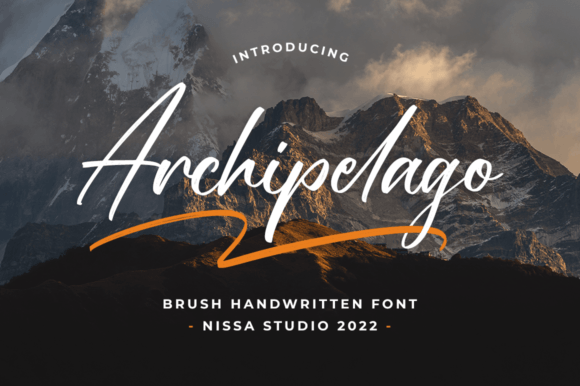
I still remember the project like it was yesterday. I was working on a branding campaign for a luxury resort, and I was determined to find the perfect font to capture their essence. The client wanted something that exuded elegance and class, but I was struggling to find a font that fit the bill. That’s when I stumbled upon Archipelago, a lovely and delicate script font that immediately caught my eye. In this article, I’ll share my experience with Archipelago, its features, and how to make the most of it in your designs.
An Honest Review of Archipelago Font
So, what makes Archipelago special? Here are some of the things I love about this font:
- ✨ Elegant and delicate script style that’s perfect for luxury brands
- 💫 Beautiful and refreshing look that’s sure to elevate your designs
- 🎨 Highly versatile and can be used for a variety of design projects, from branding to packaging
Of course, no font is perfect, and Archipelago has a few small quirks:
- 🤔 Some users may find the font a bit too delicate for certain design projects
- ⚠️ May not be suitable for body text due to its script style
The Story Behind Archipelago Font
Archipelago was designed by a team of typographers who wanted to create a font that captured the essence of elegance and class. The font was inspired by the beautiful landscapes and seascapes of archipelagos around the world. The designers aimed to create a font that was both delicate and refined, perfect for luxury brands and designs.
| Font Name | Archipelago Font |
| Author | NissaStudio |
| What is Archipelago font? | Archipelago is a lovely and delicate script font that exudes elegance and class. |